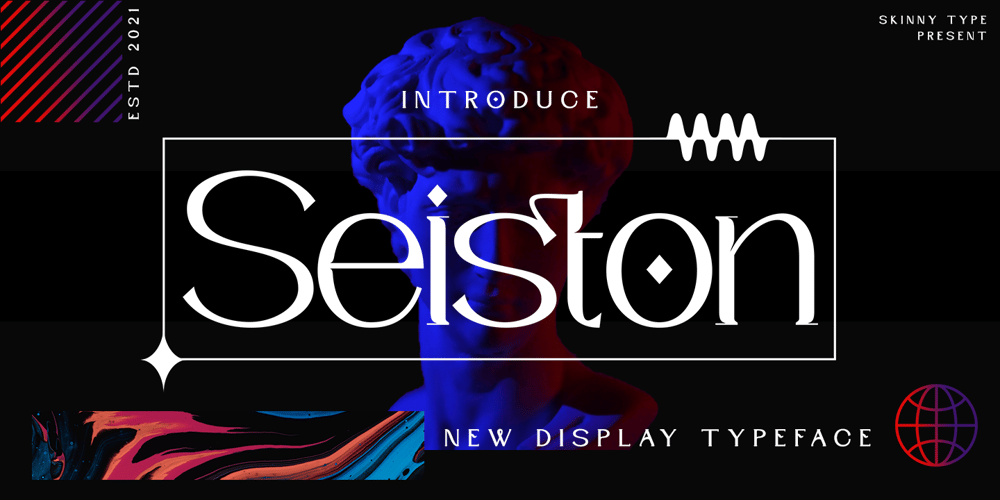
Seiston Font Family was designed by Muhajir and published by Skinny Type. Seiston contains 1 styles and family package options. Seiston is the New Modern Typeface. This other Serif collection is perfect for your next branding project, great for your business. Gallient has smooth edges, so this font gives this style an authentically handcrafted feel.Seiston also features:- Lowercase- Uppercase- Numbers and punctuation marks- MultilingualSeiston is the perfect choice for people looking for a clean, modern, minimalist, elegant and beautiful design style.Suitable for almost any graphic design such as logos, branding materials, business cards, gift cards, t-shirts, covers, thumbnails, prints, posters, photography, quotes .etcHappy Designing